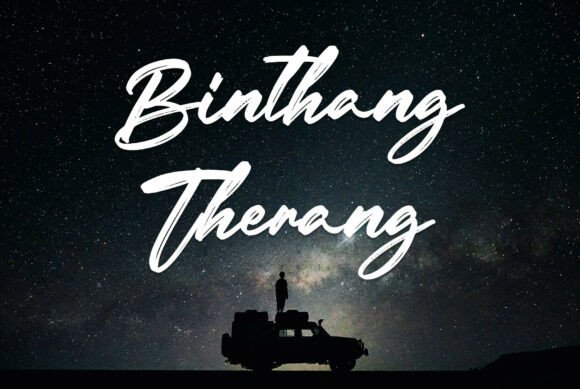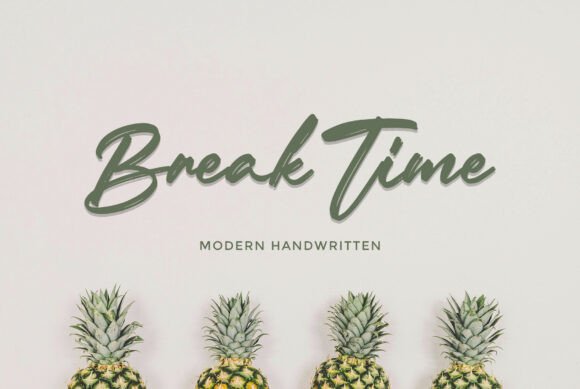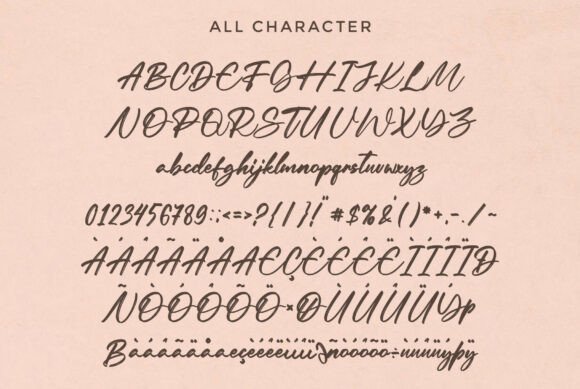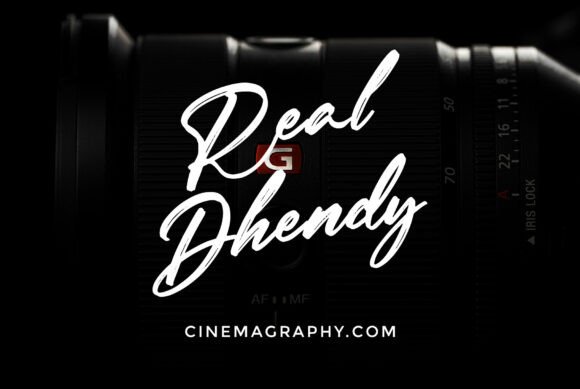
Introduction to Plaster Black Font
Have you ever been working on a creative project and struggled to find the perfect font to bring it to life? You know, that moment when you’re scrolling through design resources, searching for something that screams ‘me’ – something that’s high quality, yet authentic and unique.
Well, we’ve got you covered! Say hello to the Plaster Black Font, a modern handwritten font that exudes bold energy and contemporary style. With its expressive brush strokes, natural texture, and smooth curves, this font is perfect for designers looking to add a personal touch to their work. Whether you’re creating a logo, poster, or social media graphic, the Plaster Black Font is sure to make your design stand out. And the best part? It’s available for free download, making it a valuable resource for designers of all levels.
Key Features of Plaster Black Font
- High-quality design resource with a unique, modern aesthetic, perfect for creative projects.
- Includes a single font file with multiple styles, including Regular, Bold, Italic, and Bold Italic.
- Designed with a high resolution of 300 DPI, ensuring crisp and clear typography in print and digital applications.
- Perfect for designers working on creative projects, such as branding, logos, and digital graphics, where a modern and sleek font is required.
Honest Review: Plaster Black Font
As a designer, I’m always on the lookout for high-quality design resources to elevate my creative projects. Recently, I had the chance to work with the Plaster Black Font, and I must say it’s been a great addition to my design arsenal.
Here are some things that work well: ✨
- Unique and edgy design aesthetic that adds a touch of sophistication to any project
- Perfect for use on a transparent background, making it ideal for minimalist designs
While the Plaster Black Font is a great resource, there are a few limitations to consider: ⚠️
- May not be suitable for projects that require a more playful or childlike tone
- Some users may find the font too bold or overpowering
Overall, I’m impressed with the Plaster Black Font. Its high-quality design and versatility make it a valuable addition to any designer’s toolkit. With its transparent background and edgy aesthetic, it’s perfect for designers working on creative projects that require a touch of sophistication.
Tips for Getting the Most Out of Plaster Black Font
Use Plaster Black Font in creative projects such as posters, flyers, or brochures. This font is ideal for making a statement and grabbing attention. You can also use it in combination with other design elements to create a unique and eye-catching design.